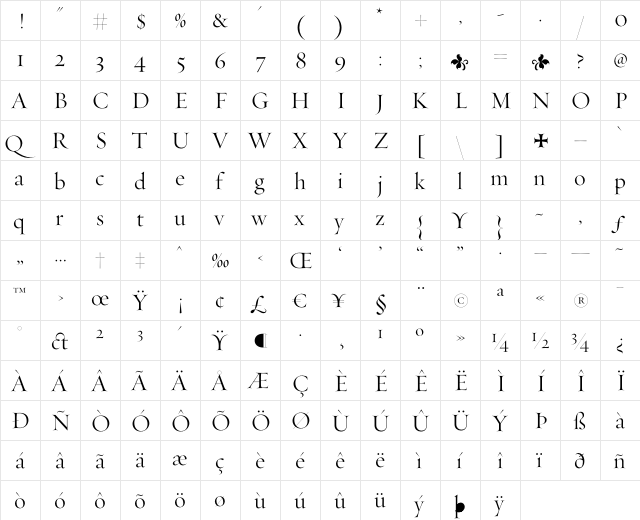
Requiem Fine-HTF-Roman
Design Context for Requiem Typeface
Requiem takes a measured approach to typography — its balanced proportions and neutral character make it a reliable workhorse for both digital and print work.
Pro Tip: Pair Requiem with a font of contrasting weight or personality to build a more expressive typographic hierarchy.